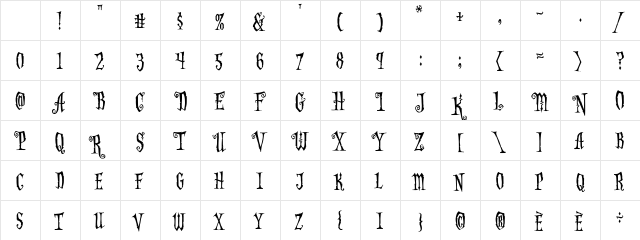
CCAltogetherOoky Regular Free Font
CCAltogetherOoky Regular
Design Context for CCAltogetherOoky
CCAltogetherOoky is a composed and adaptable typeface that performs quietly and consistently across a wide range of design contexts.
Pro Tip: Use CCAltogetherOoky in both headline and body roles to test its range before committing to a single application.